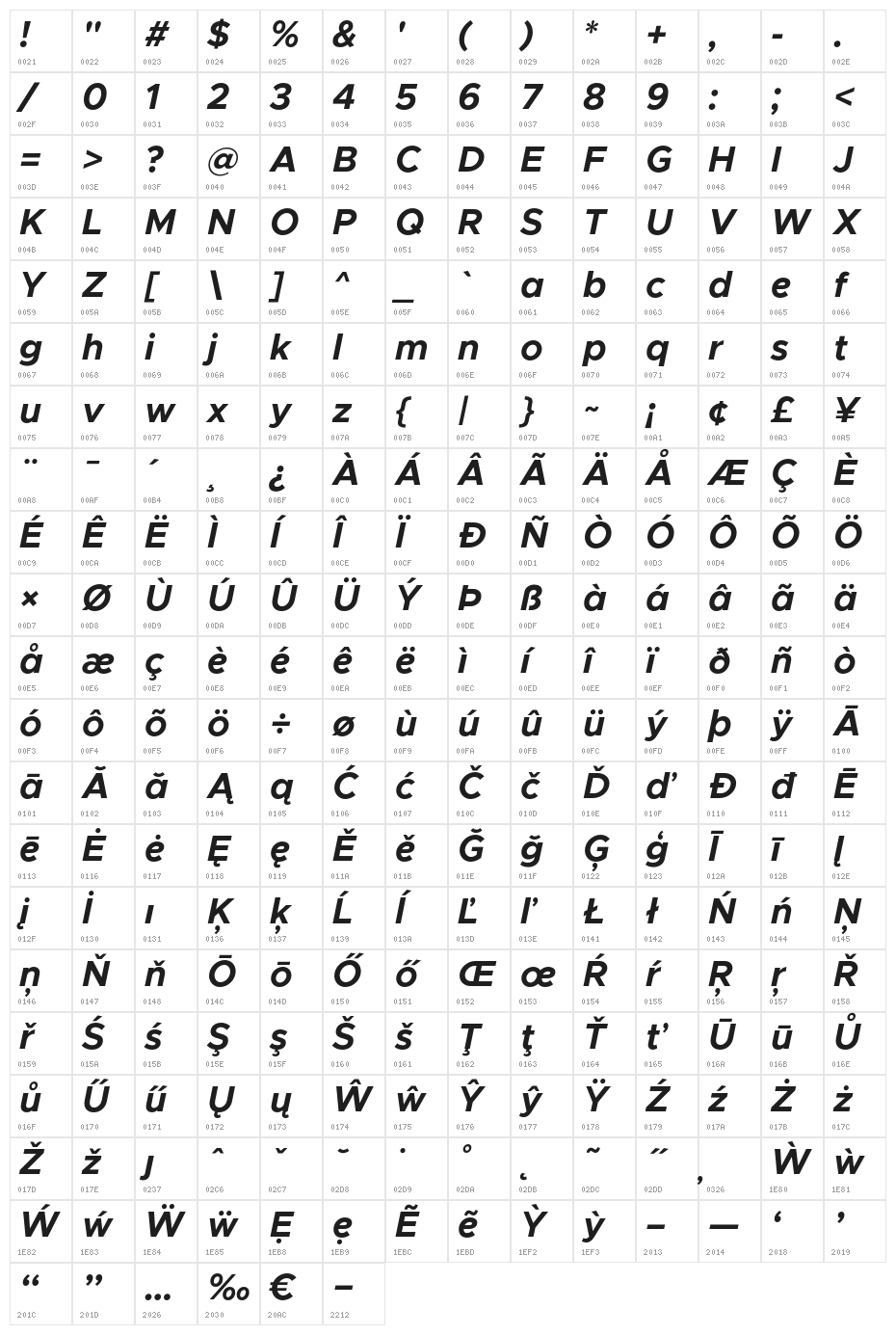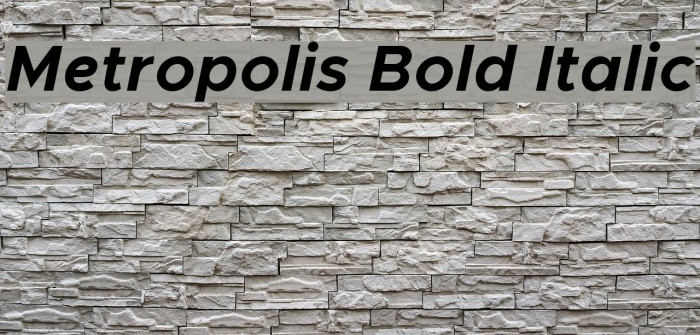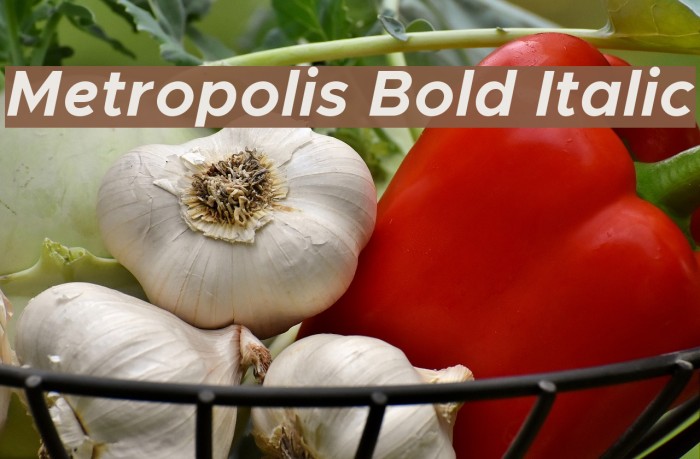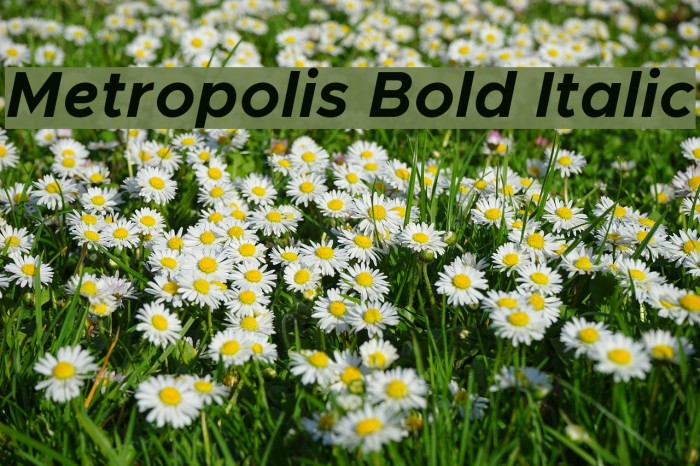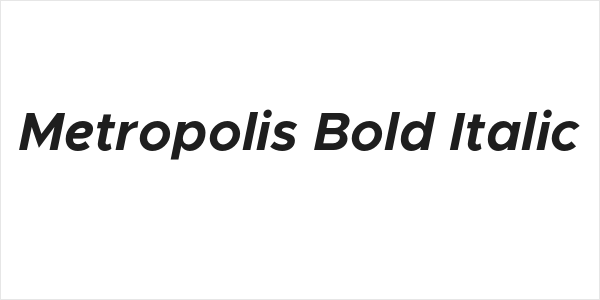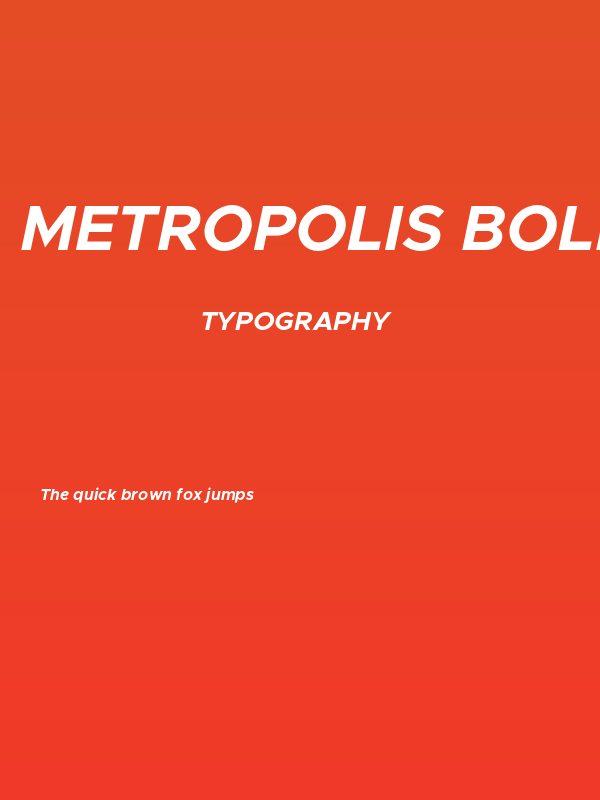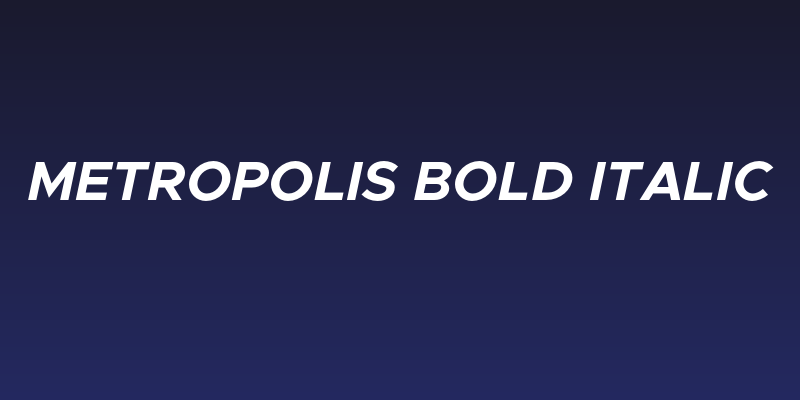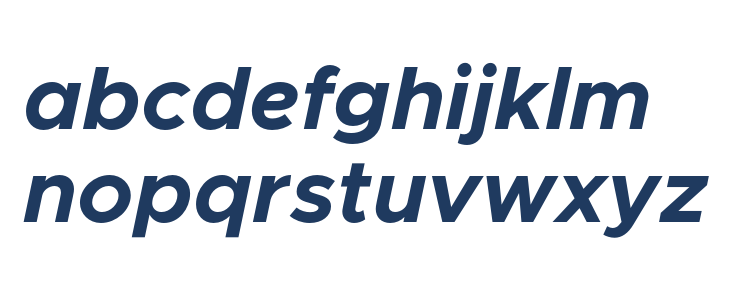
Metropolis Bold Italic Font
Metropolis Bold Italic Description
This font features a bold and italicized style, combining a modern aesthetic with a strong presence. The characters are slightly slanted, adding a dynamic and forward-moving feel. The strokes are thick and consistent, providing a sense of stability and confidence. The uppercase and lowercase letters are well-proportioned, ensuring readability across various applications. The numerals are clear and distinct, making them suitable for both text and display purposes. Special characters are included, maintaining the font's cohesive look. Overall, this font is versatile and can be used in a variety of design projects.
| Proposed Projects | Ideal for branding, headlines, posters, and digital media where a strong and modern impression is desired. |